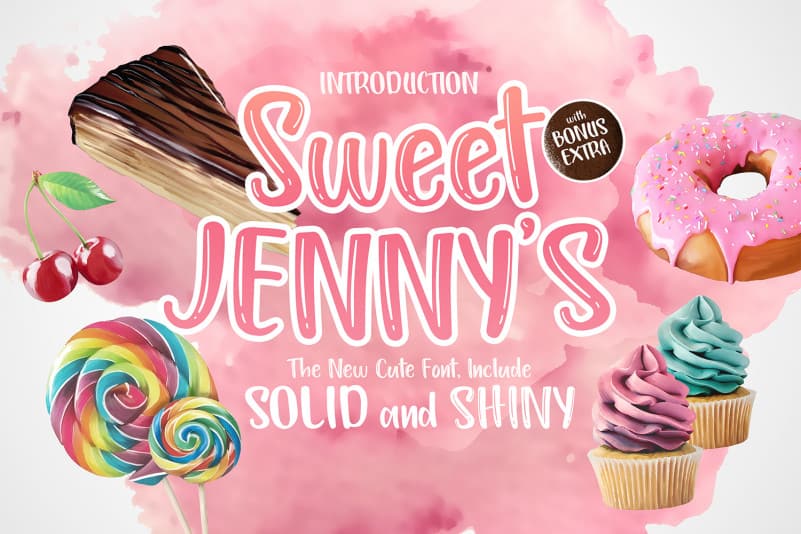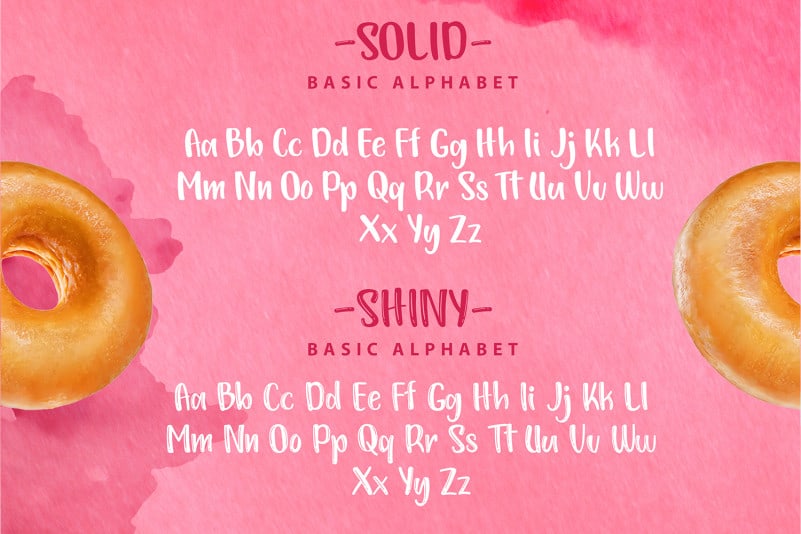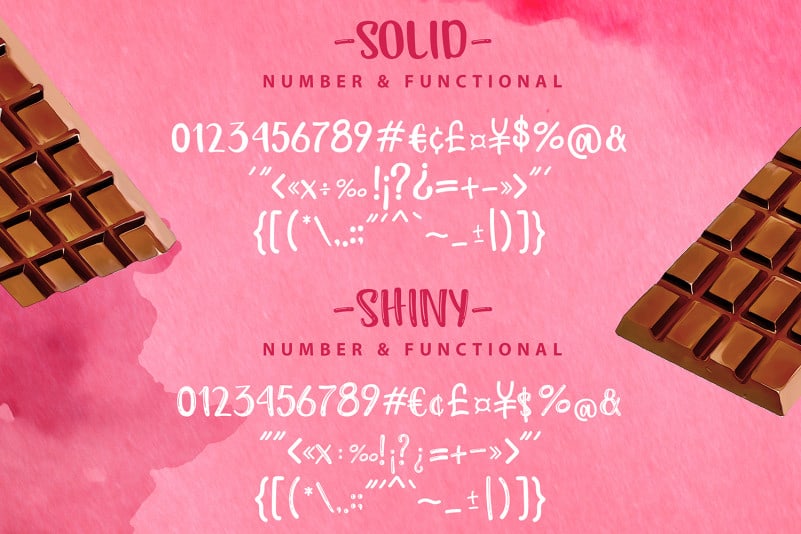
Sweet Jenny’s Display Font is a unique and colorful sans serif typeface. Its sweet and neat style makes it incredibly fitting to a large pool of designs. The only limit is your imagination!
Sweet Jenny’s Display Inspired From most delicious ice cream in the World, that is Jeni’s Splendid Ice Creams, founded by Jeni Britton Bauer the best Ice Cream maker from USA. This font is dedicated for all Sweet Foods ever made.